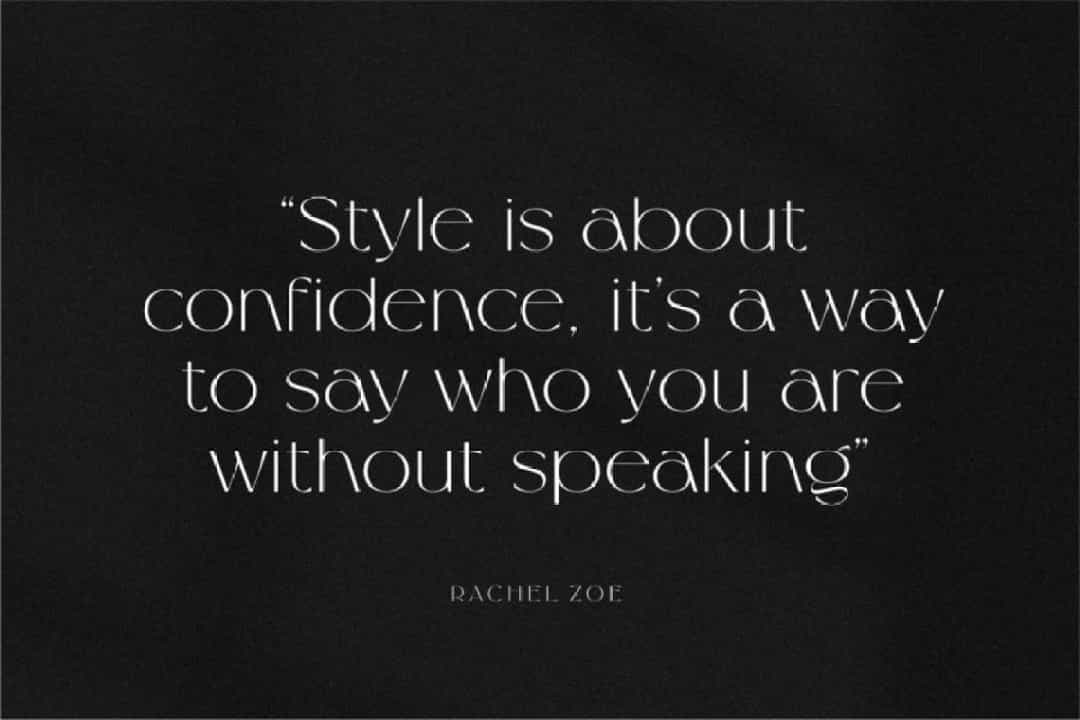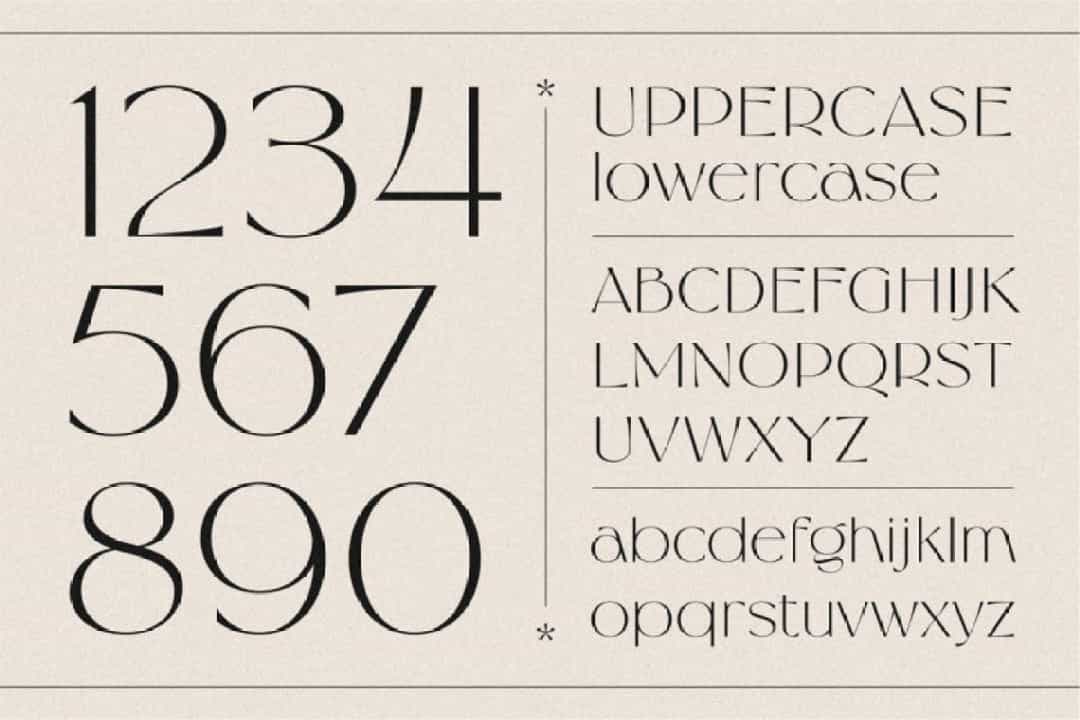
Diaspora Font is an elegant Modern sans serif typeface designed to convey luxury and elegance. This font includes lowercase characters, punctuation marks and numerals in its font set.